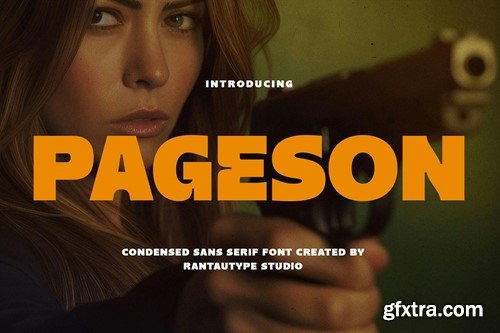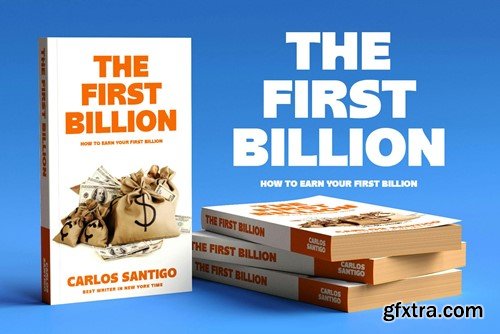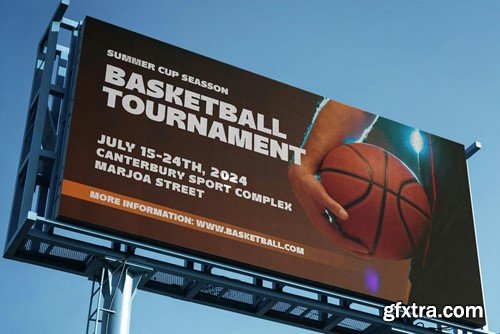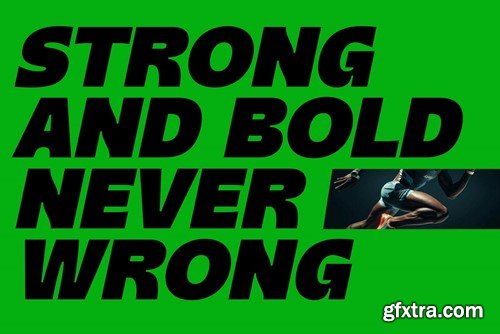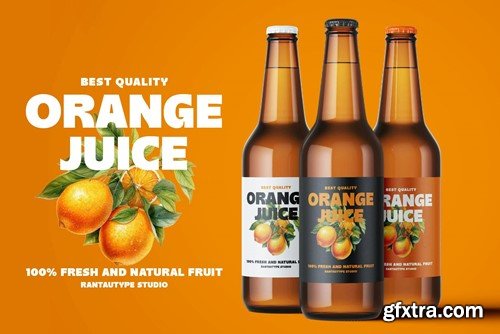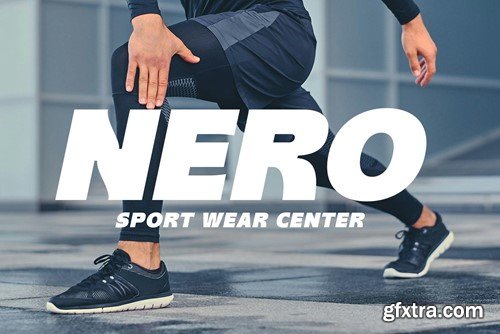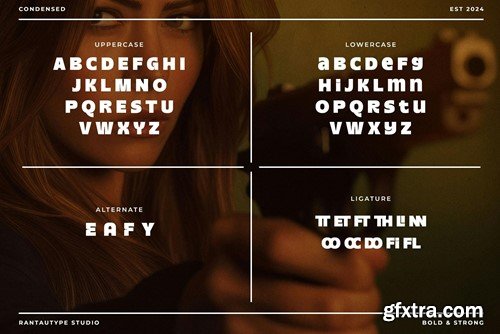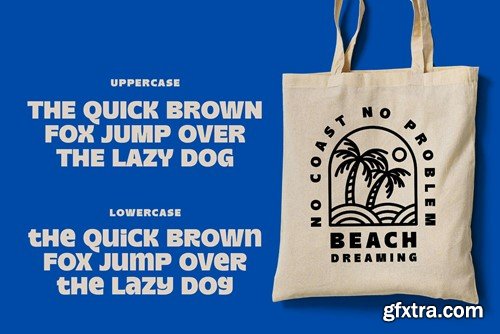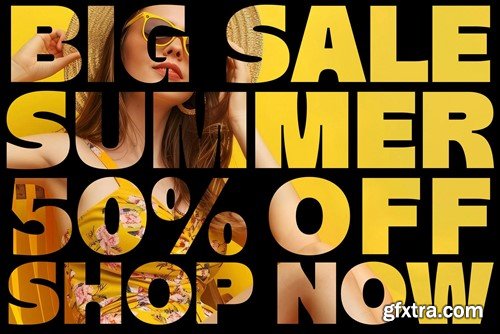
Pageson is bold condensed font with solid and strong impression. Pageson come with impression of strength it useful for your a cool and awesome project up next. Pageson is a perfectly choice for any creative endeavor, chic, lifestyle design such as logotype, advertisements, watermark on photography, stationery, branding project, display and magazine, invitation, poster, corporate brand, product design, label, business project and many other project with fun or a formal kind touch. What you have: Langguange support: Afrikaans, Albanian, Asu, Basque, Bemba, Bena, Breton, Catalan, Chiga, Cornish, Danish, Dutch, English, Estonian, Faroese, Filipino, Finnish, French, Friulian, Galician, German, Gusii, Icelandic, Indonesian, Irish, Italian, Kabuverdianu, Kalenjin, Kinyarwanda, Luo, Luxembourgish, Luyia, Machame, Makhuwa-, Meetto, Makonde, Malagasy, Manx, Morisyen, Northv Ndebele, Norwegian, Bokmål, Norwegian, , Nynorsk, Nyankole, Oromo, Portuguese, Quechua, Romansh, Rombo, Rundi, Rwa, Samburu, Sango, Sangu, Scottish, Gaelic, Sena, Shambala, Shona, Soga, Somali, Spanish, Swahili, Swedish, Swiss, German, Taita, Teso, Uzbek (Latin), Volapük, Vunjo, Zulu Thank you for your purchase! Hope you enjoy with our font!